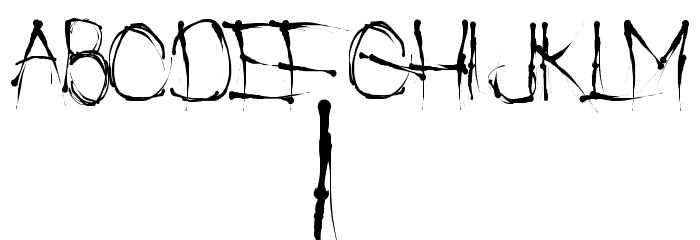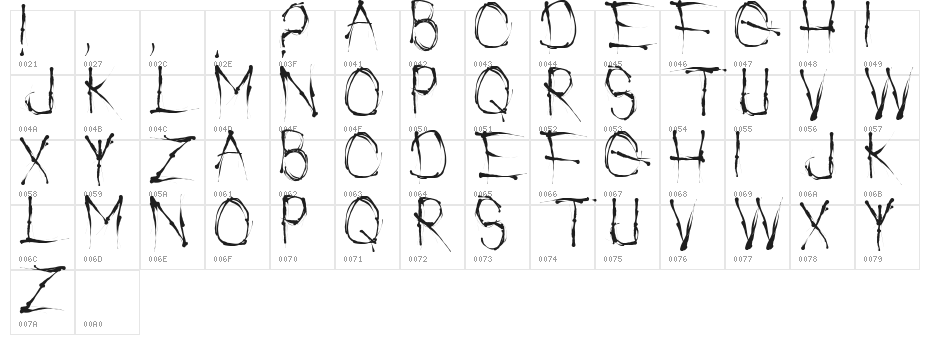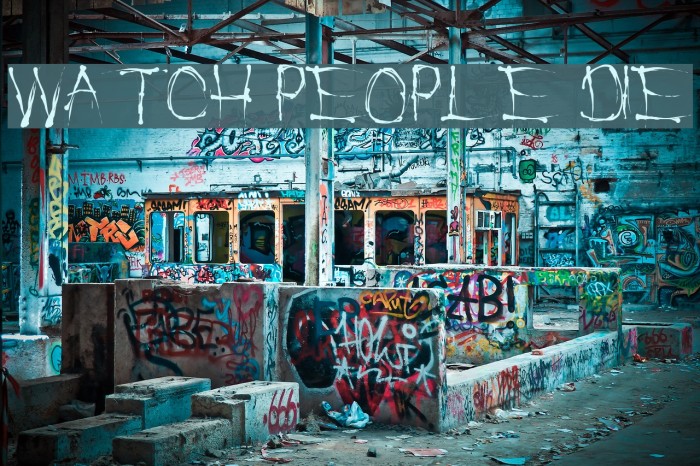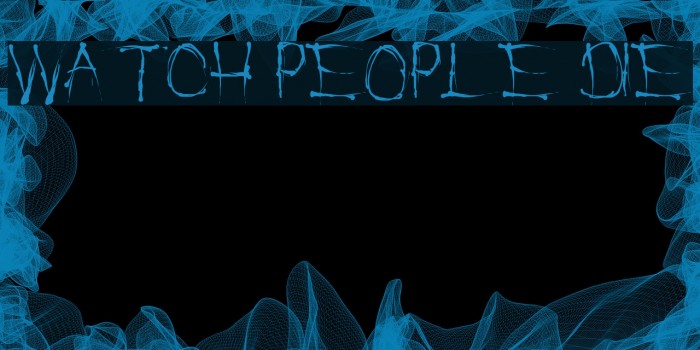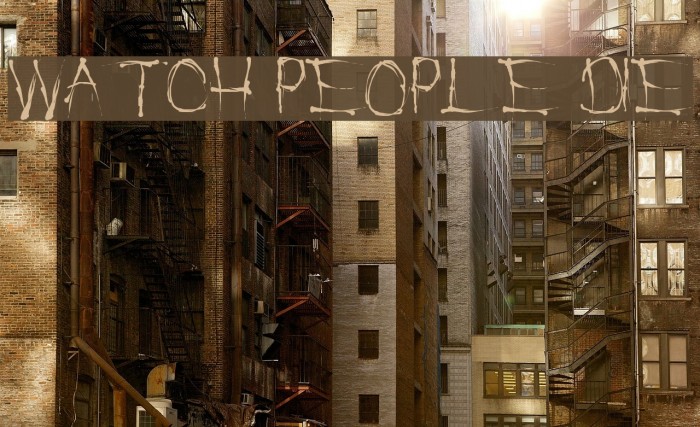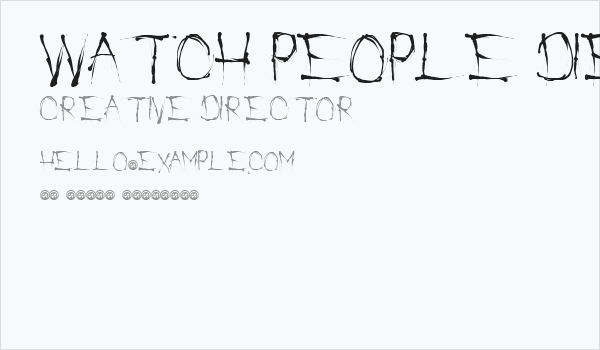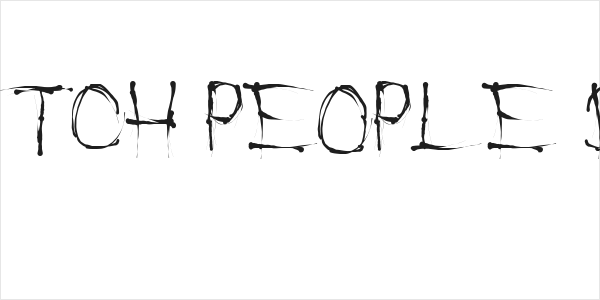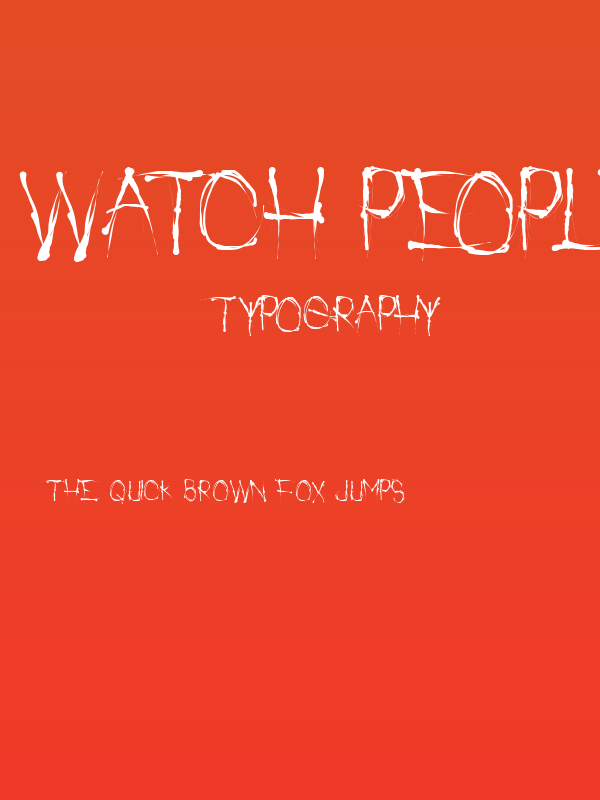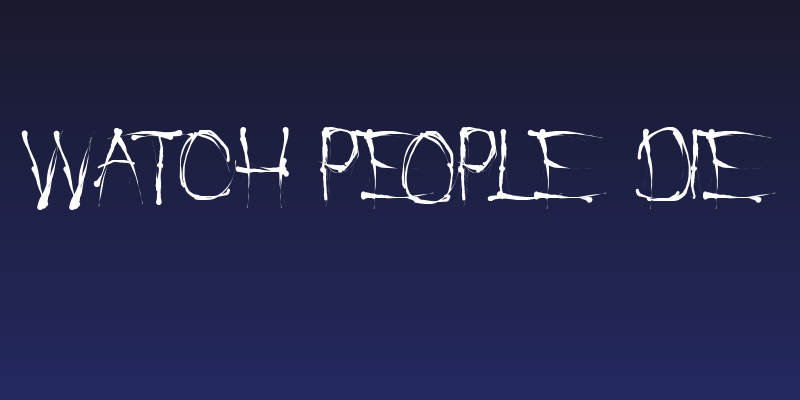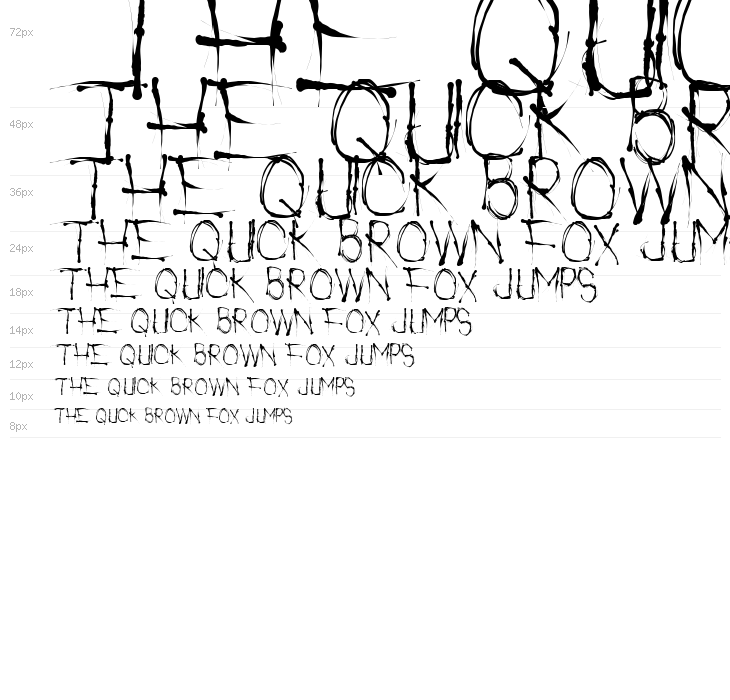
Watch People Die Font
Watch People Die Description
This font features a highly distressed and grungy style, characterized by its erratic and splattered strokes. Each letter appears as if it has been hastily painted with a brush, leaving behind drips and splatters that give it a chaotic and raw appearance. The uneven lines and irregular shapes contribute to its unsettling and edgy aesthetic, making it stand out with a rebellious and unconventional vibe. The font's unique style evokes a sense of urgency and intensity, perfect for projects that aim to convey a dramatic or unsettling mood.
| Overall Style | Grungy, Distressed, Chaotic |
| Use Case | Logos, Posters, Album Covers |
| Proposed Projects | Ideal for horror movie posters, edgy album covers, or rebellious fashion branding. |